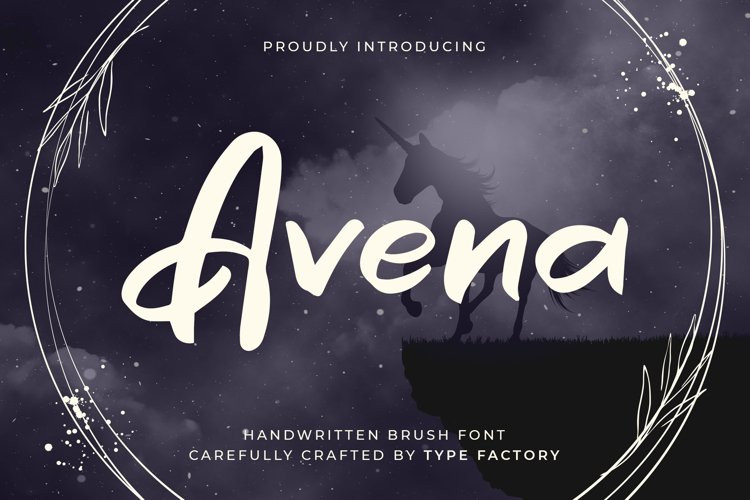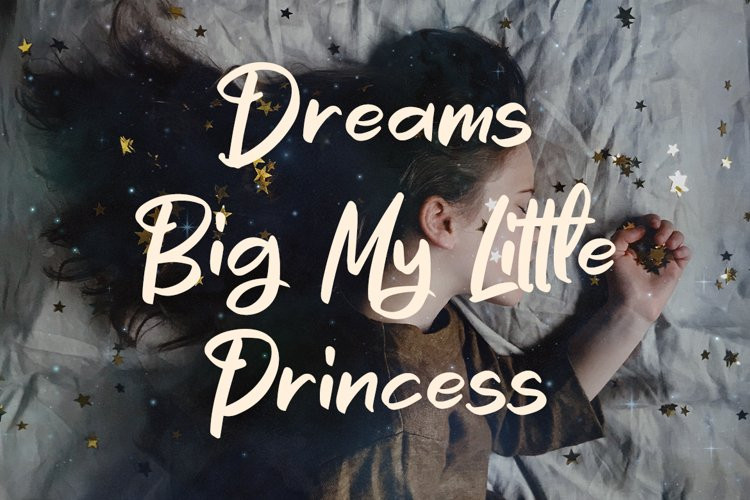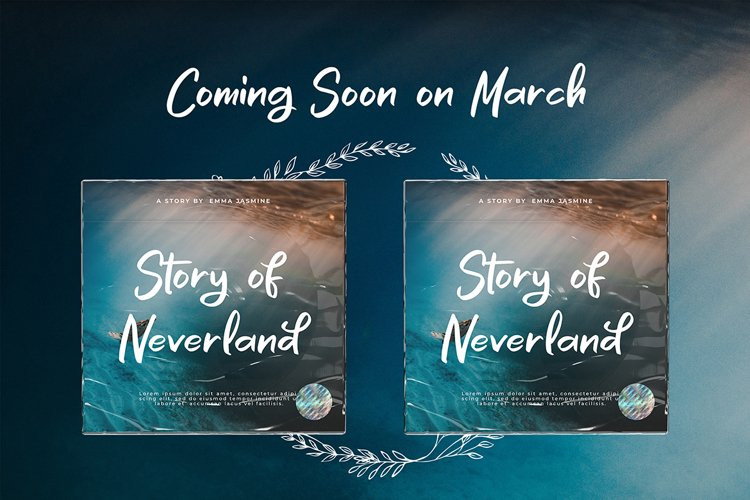
Avena Font
Avena FontAvena is a brush script typeface.
Perfectly suitable for creating Brands, Art, lifestyle designs such as logos, title, and magazine,s and more.